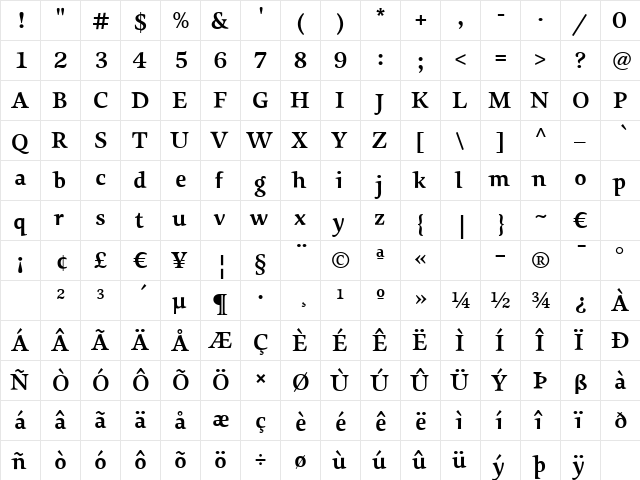
Sovereign-Bold Regular
Design Context for Sovereign-Bold Typeface
Sovereign-Bold takes a measured approach to typography — its balanced proportions and neutral character make it a reliable workhorse for both digital and print work. The heavy weight commands attention and anchors typographic hierarchies.